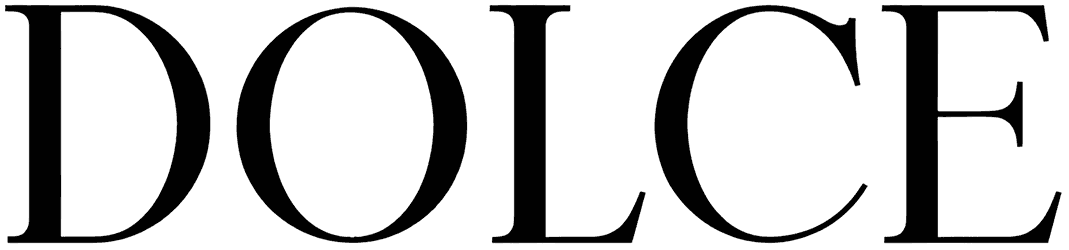
Dolce Font
Good news for serif font lovers: Dolce is at your fingertips now! This case is appearing in a simple look yet fancy and works perfectly for magazines, books, titles, and so forth. It will add a formal vibe to your text design, but remember it lacks lowercase letters. Just give it a chance and see how the outcome inspires everyone!